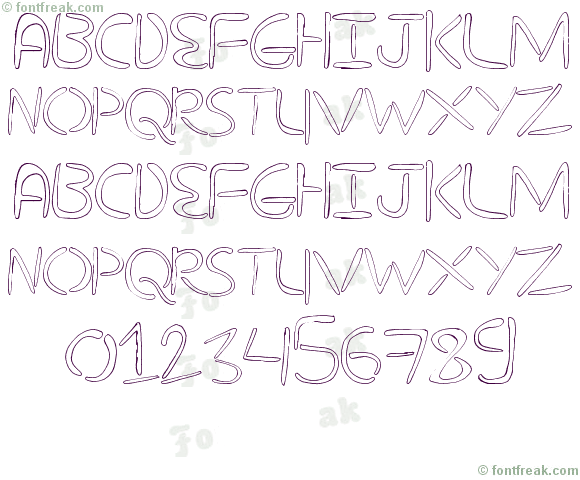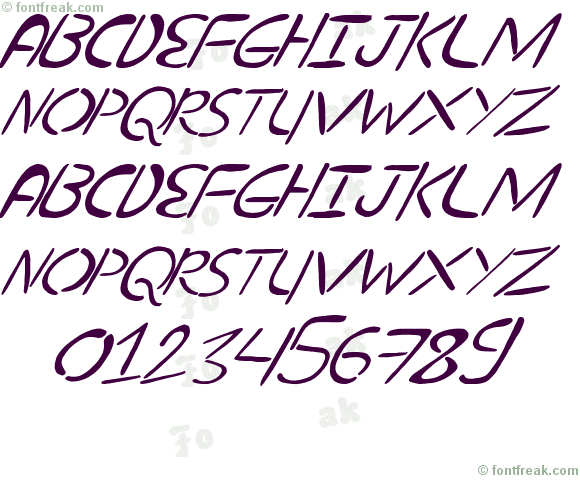
nuevostencil filled
nuevostencil tilted
nuevostencil hollow
The nuevostencil filled font by Xerographer Fonts is a distinctive display typeface that captures attention with its unique design. This font falls into the stencil category, characterized by its bold, filled letters that showcase a contemporary yet playful aesthetic. The strokes are consistent in weight, giving the font a cohesive look while maintaining an inviting appeal. The spacing between letters is carefully crafted to enhance readability, making it suitable for various applications.
Visually, the nuevostencil filled font features tilted and hollow elements that add a dynamic flair to the text. This playful design makes it ideal for use in eye-catching projects such as movie posters, event flyers, and promotional materials. Its bold appearance is also well-suited for restaurant menus and signage, where it can draw attention to specific items or sections. Additionally, the font can be effectively utilized in branding for small businesses looking to convey a modern and creative identity.
What truly sets the nuevostencil filled font apart is its ability to combine functionality with artistic flair. The balance between boldness and playfulness allows it to stand out in a crowded market, making it a valuable resource for anyone looking to add a unique touch to their designs. For those interested in exploring this typeface, the nuevostencil filled font free download provides an excellent opportunity to enhance creative projects with a distinctive and stylish choice.